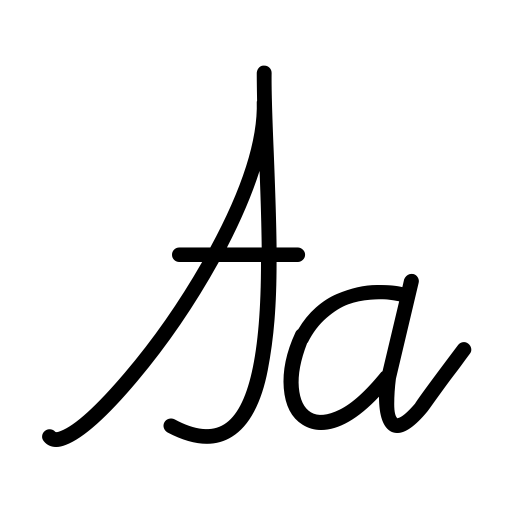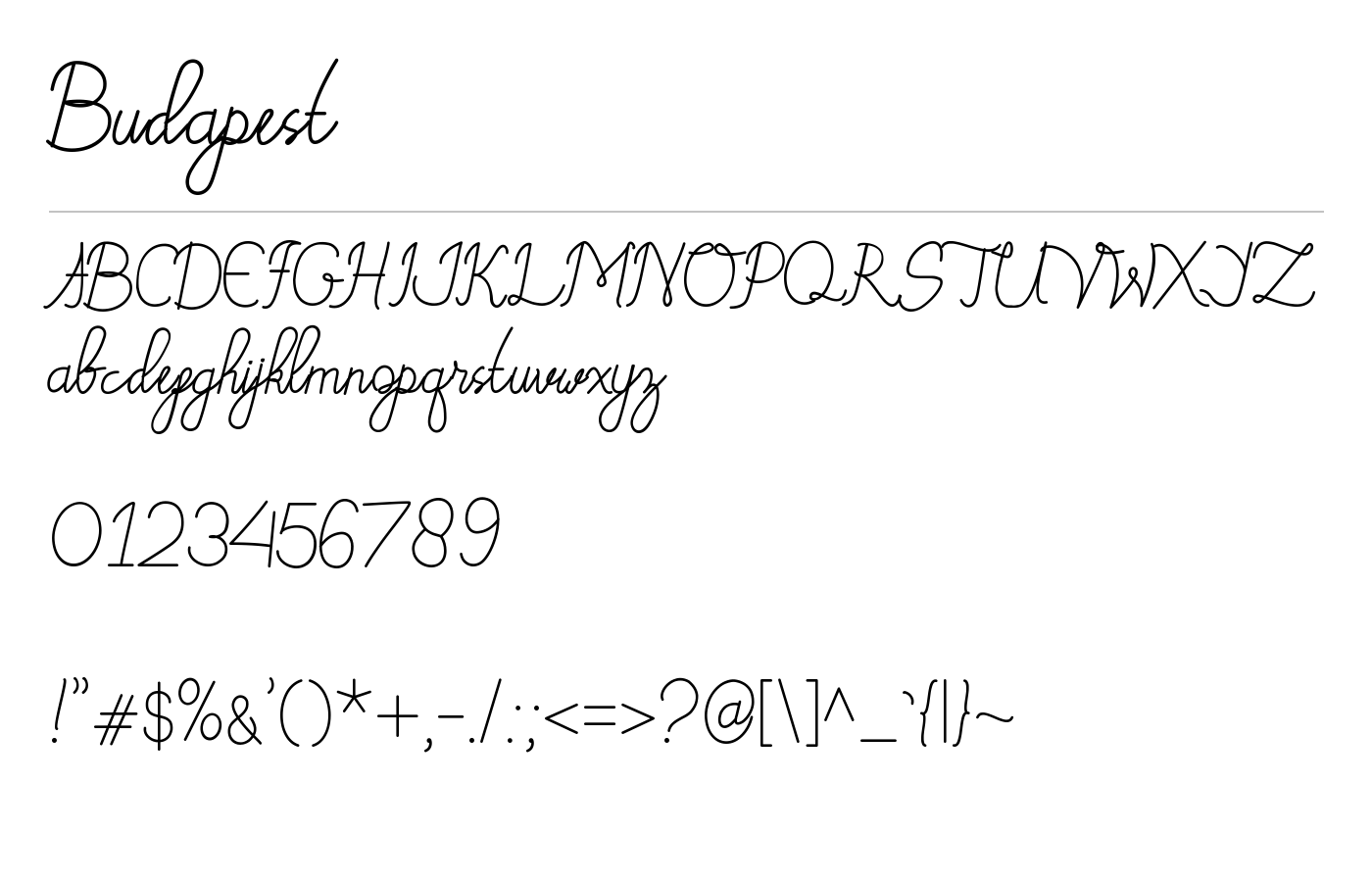
Budapest is a delicate and elegant script font that features thin, flowing lines with a graceful, handwritten feel. Its slender letterforms and refined curves make it ideal for stylish branding, invitations, and decorative headlines where a touch of sophistication and personal charm is desired. This font works beautifully in contexts that call for a modern yet timeless aesthetic with a light and airy presence.
Budapest Font
About Budapest Font
| Font family | Budapest Font |
| Designer | Syukur Setiyadi |